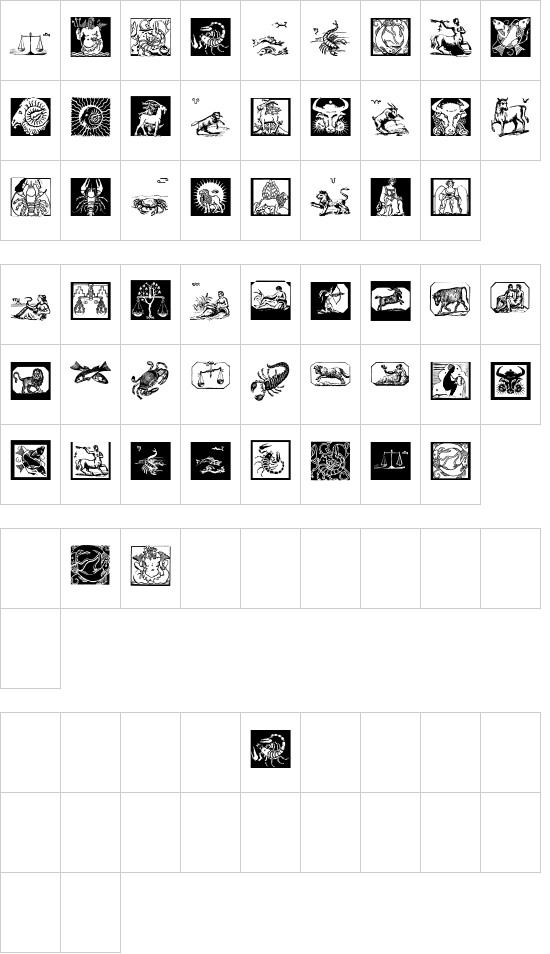
ZodiacsSignStars is a dingbat font filled with astrological symbols, constellation icons, and celestial imagery in place of letters. The glyphs cover the zodiac signs along with stars, moons, and night-sky ornament, all drawn with a clean, mystical clarity that makes them easy to drop into a layout as decorative marks.
The set is well suited to horoscope graphics, mystical and spiritual branding, tarot and astrology packaging, and decorative night-sky accents on posters and apparel. It also works for icon badges and divider elements. ZodiacsSignStars is free to download as a TrueType file, and you can preview the symbols with your own keystrokes to locate the signs you need before using them.